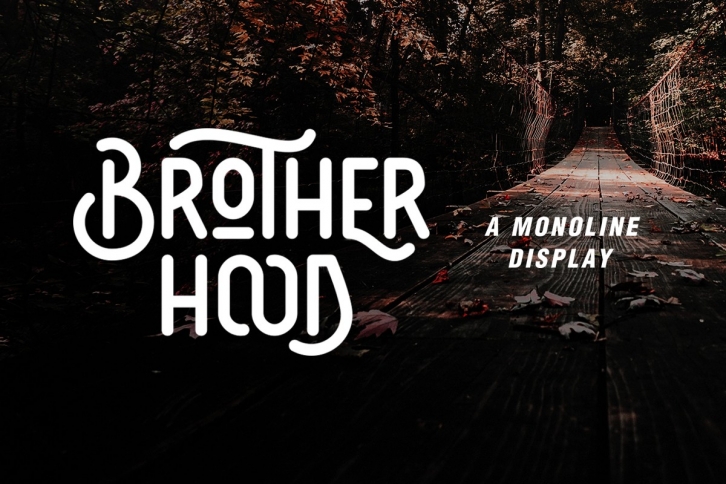
Brotherhood is a trendy and unique font with an authentic style. It was designed by dharmas and it's a great choice for creative people who need such a font. It was released on October 16, 2018 and the file size is 5.33 MB. Brotherhood will add an organic vibe to any design idea!